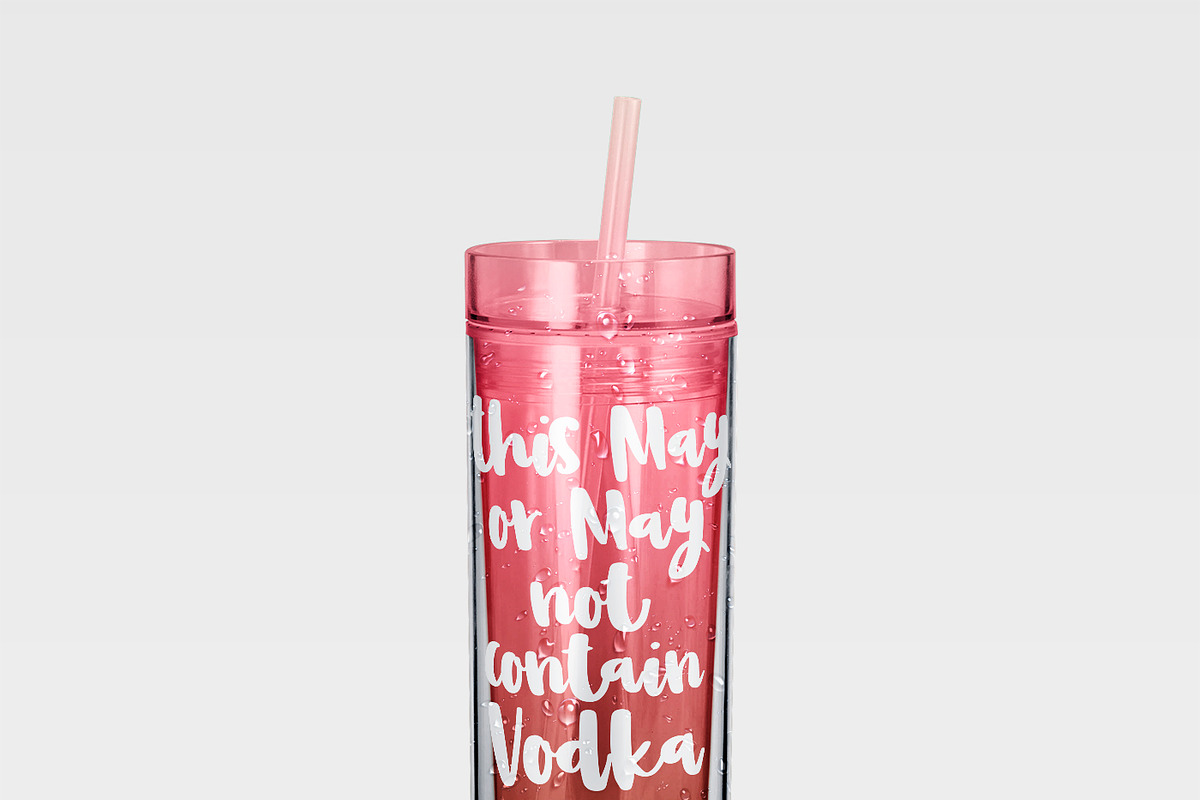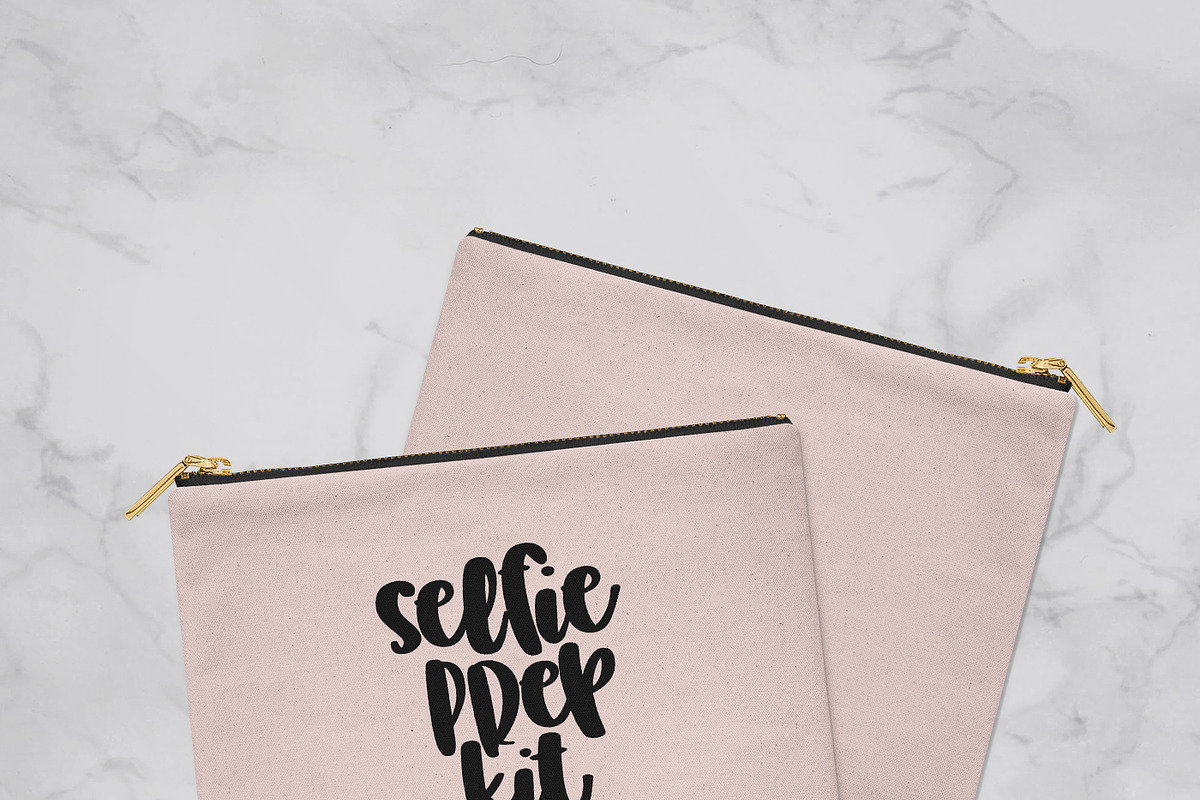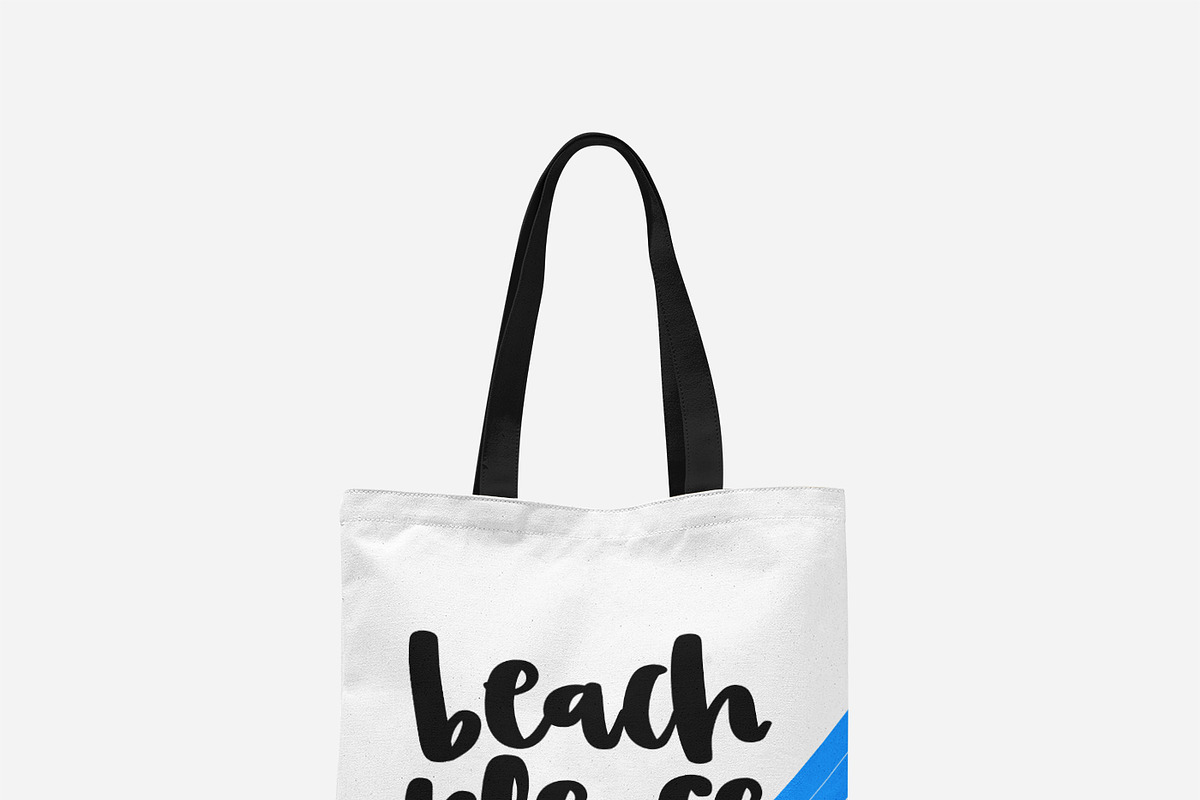
Broklyn Font Duo
Broklyn Font Duo by OnTheSpotStudio is a font selected for branding, posters, packaging, typography.
- Broklyn is a chunky fun font duo with two sets of uppercase letters and one set of lowercase letters.
- Broklyn Regular
- Broklyn Script Regular
Why Broklyn Font Duo is worth a look
Broklyn Font Duo by OnTheSpotStudio fits naturally into Branding, posters, packaging, typography.